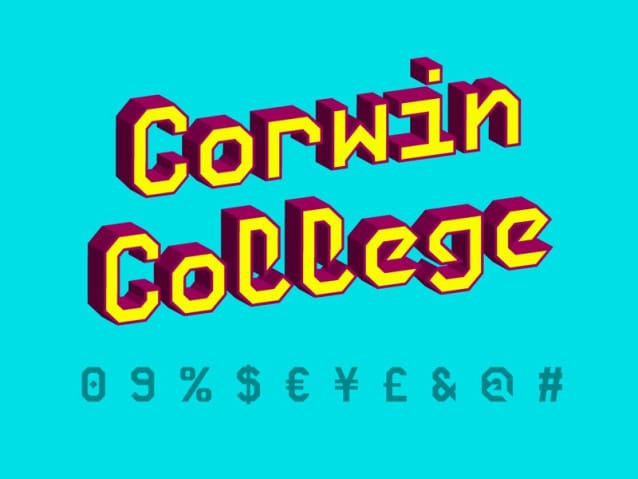
Corwin College Font, it has a distinctive futuristic design. Use it to create time-traveling movie posters for futuristic or extraterrestrial productions. Fantastic for creating unique cards and artwork for science fiction fans.This font was created to be used for universal events like game competitions, wall advertisements, and poster designs. Your design can look better with a simple combination. Purchase it right away to enjoy using it ahead of the competition.
Corwin College Font
| Classification: | Display Fonts, Techno / Futuristic Fonts |